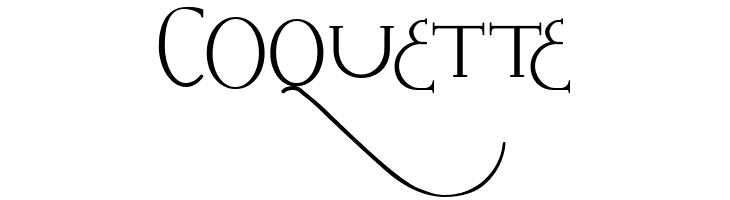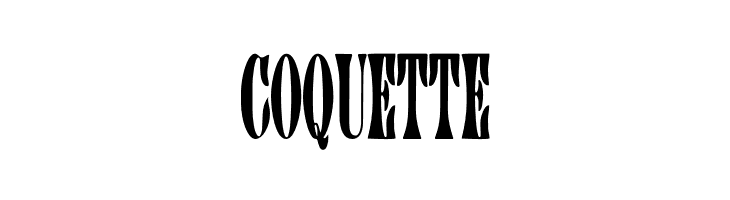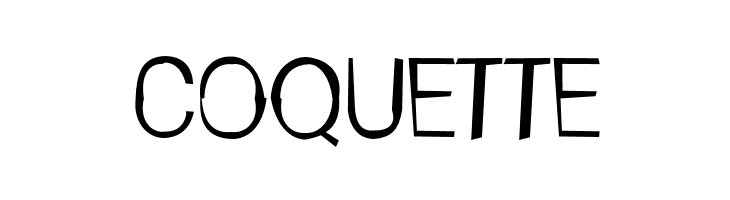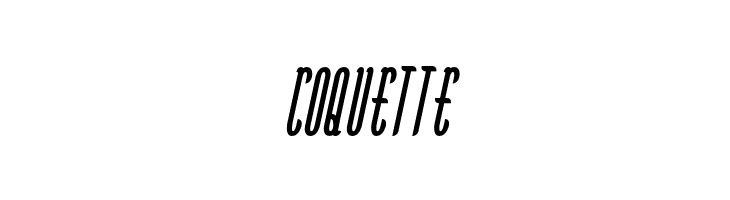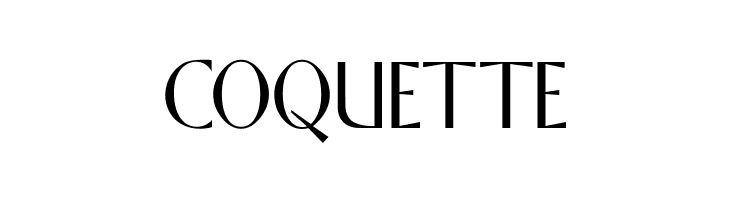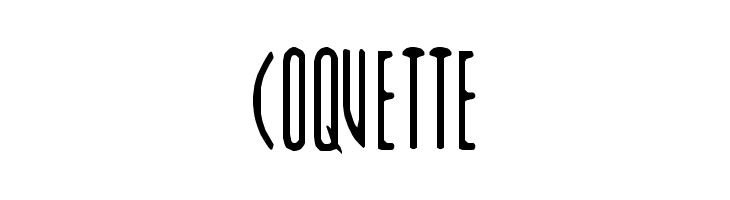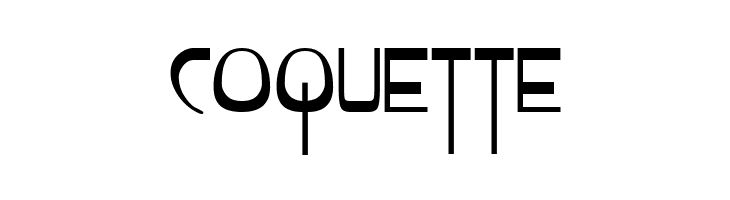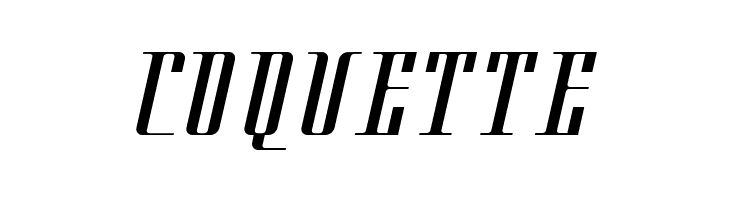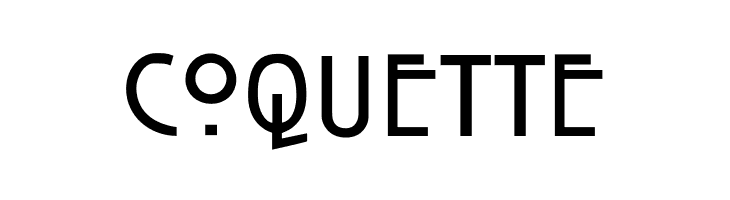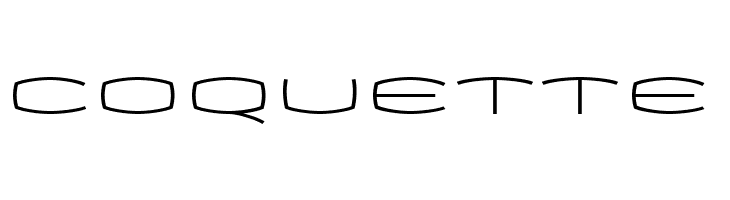
( Fonts by Graham Meade and Manfred Klein )
An elegant, elongated font with artistic curves and a modern calligraphic style.
A bold, high-contrast font with elongated, dramatic characters.
A condensed oblique font with sleek, elongated letterforms and moderate stroke contrast.
A sleek, modern font with elongated, angular characters and a dynamic appearance.
( Fonts by Hideki Katayama - com4t-fff.seesaa.net )
A sleek, futuristic font with elongated, minimalist letterforms.
( Fonts by Serge Shi - www.behance.net/positivart )
A decorative, elongated font with tall, narrow letterforms and a modern flair.
( Fonts by www.typedepot.com )
A thin, elegant font with elongated strokes and a minimalist aesthetic.
( Fonts by Mans Greback - www.mawns.com )
A whimsical, hand-drawn font with thin, elongated characters and a casual aesthetic.
( Fonts by Mans Greback - www.mawns.com )
A playful, hand-drawn font with thin, elongated characters and a whimsical style.
A modern, sleek font with elongated, narrow characters and consistent stroke width.
A modern, geometric font with elongated, narrow letterforms and a sleek design.
( Fonts by www.feorag.com )
A whimsical and artistic font with swirling, elongated strokes and decorative curls.
( Fonts by Ingo Zimmermann - www.ingofonts.com )
An artistic, handcrafted font with thin, elongated strokes and subtle irregularities.
( Fonts by http://perso.calixo.net/~uzim/ )
A playful, hand-drawn font with thin, elongated characters and a whimsical style.
( Fonts by http://perso.calixo.net/~uzim/ )
A playful, modern italic font with thin, elongated strokes and a dynamic appearance.
( Fonts by http://perso.calixo.net/~uzim/ )
A modern, edgy font with elongated, narrow letterforms and thin strokes.
( Fonts by http://perso.calixo.net/~uzim/ )
A decorative, elongated font with sharp, angular edges and consistent thin strokes.
( Fonts by Marty Bee - www.martybee.com )
A medieval-inspired font with elongated serifs and dramatic, angular forms.
( Fonts by Mans Greback - www.mawns.com )
A sleek, modern font with thin, elongated strokes and geometric precision.
( Fonts by Andrew Hart - dirt2.com )
A graffiti-inspired font with elongated, angular characters and an urban aesthetic.
( Fonts by Mans Greback - www.mawns.com )
A sleek, modern font with thin, elongated letterforms and a minimalist design.
( Fonts by Mans Greback - www.mawns.com )
A dynamic, handwritten font with fluid, elongated strokes and artistic flair.
( Fonts by Grzegorz l - www.glukfonts.pl )
A delicate and elegant font with thin, elongated strokes and a refined appearance.
A playful, hand-drawn font with thin, elongated characters and a whimsical style.